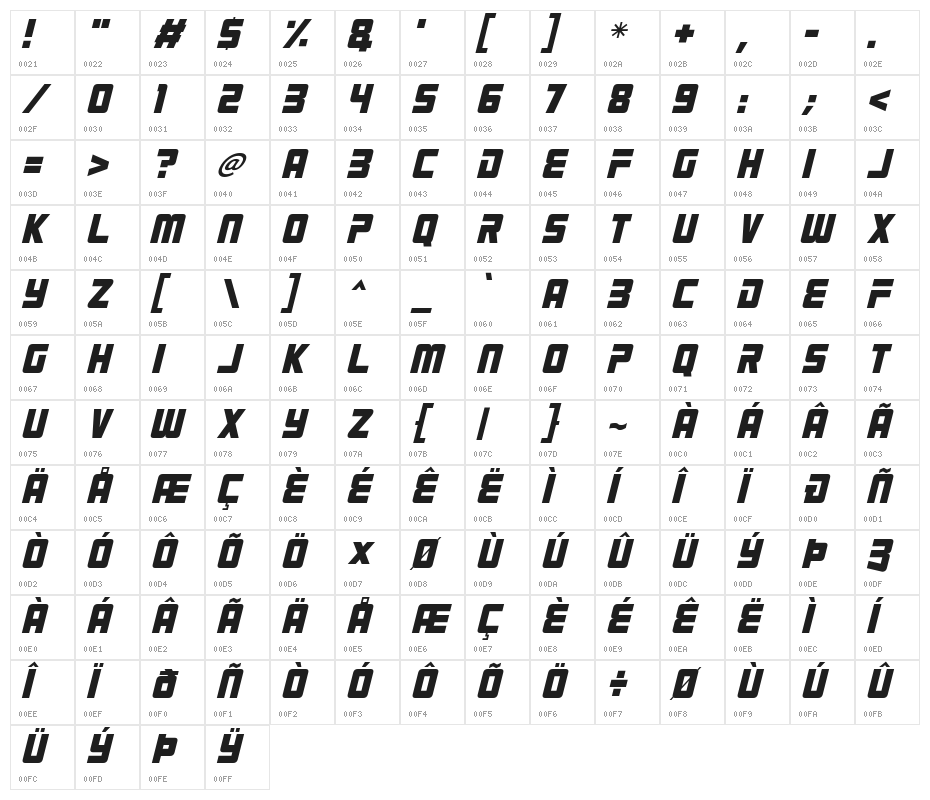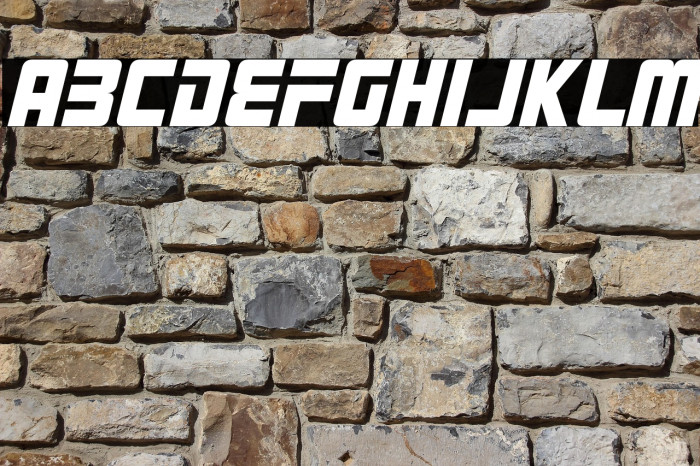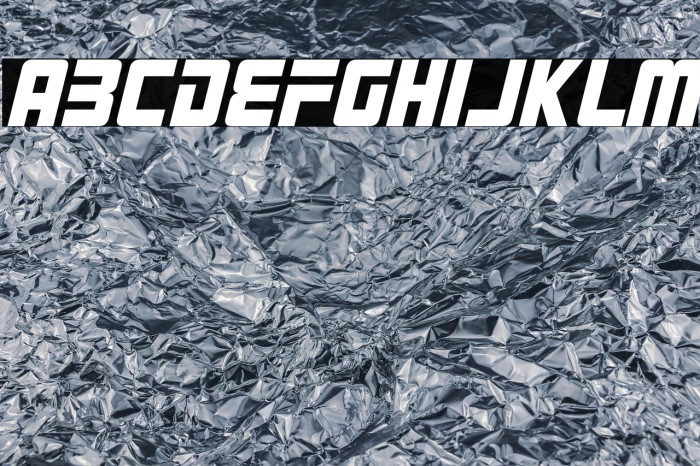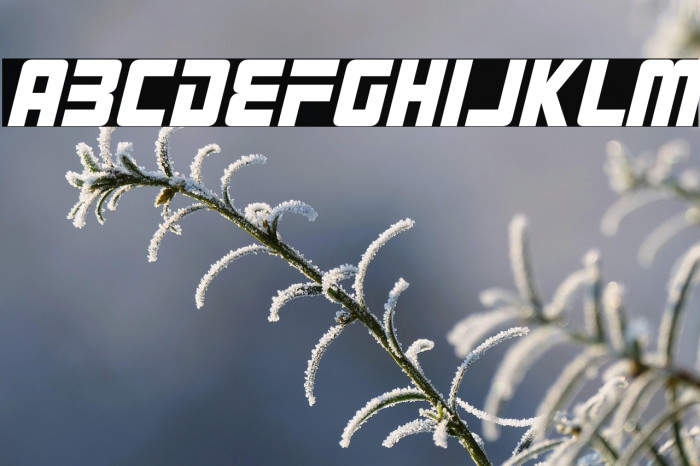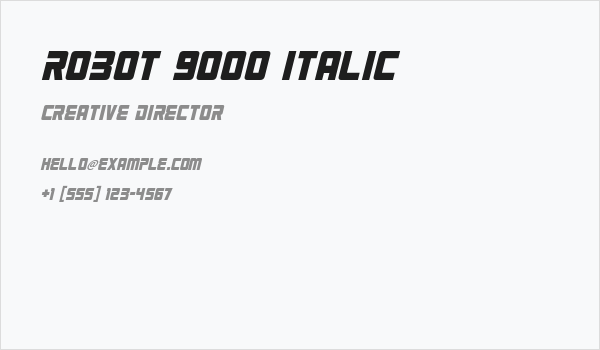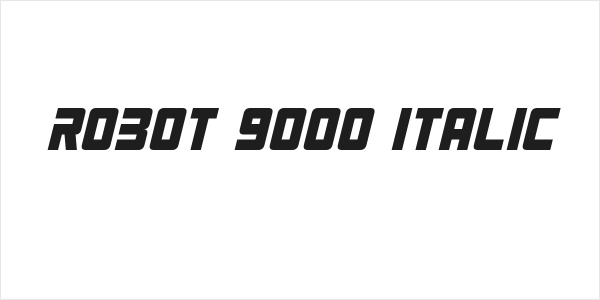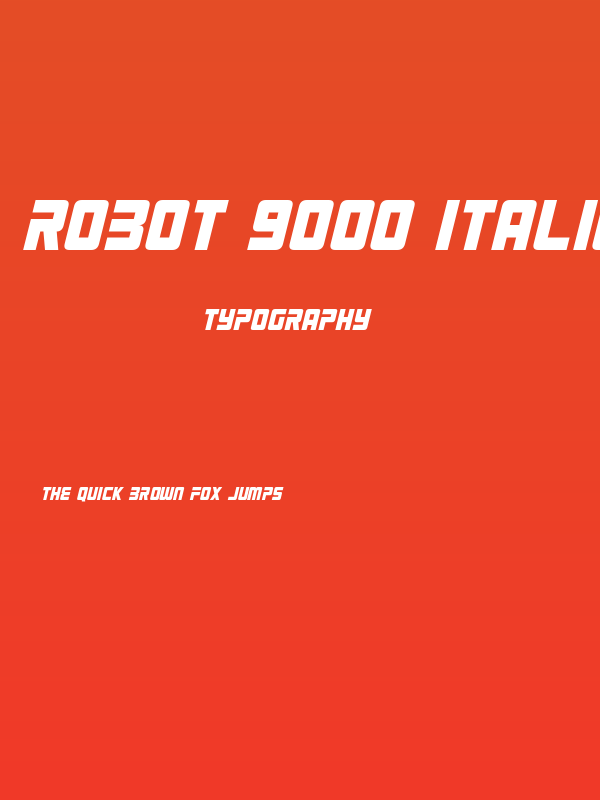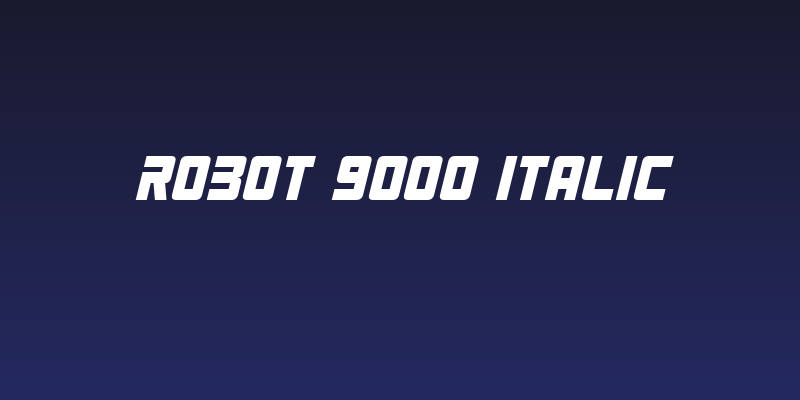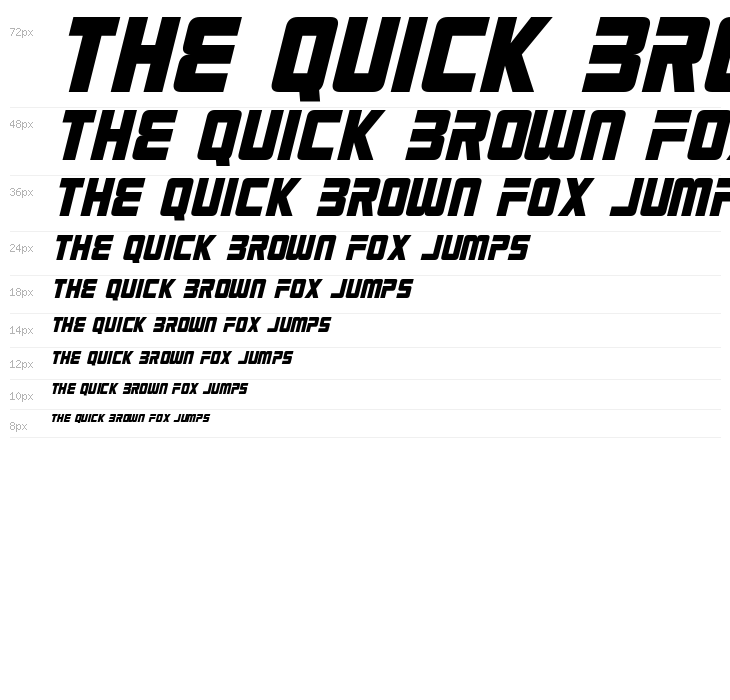
Robot 9000 Italic Font
Robot 9000 Italic Description
This font features a bold, futuristic design with a distinct italic slant, giving it a dynamic and forward-moving appearance. The characters are wide and robust, with a consistent stroke thickness that emphasizes strength and modernity. The angular cuts and geometric shapes contribute to its high-tech aesthetic, making it ideal for projects that require a sense of innovation and speed. The numbers and special characters maintain the same bold style, ensuring uniformity across all text elements.